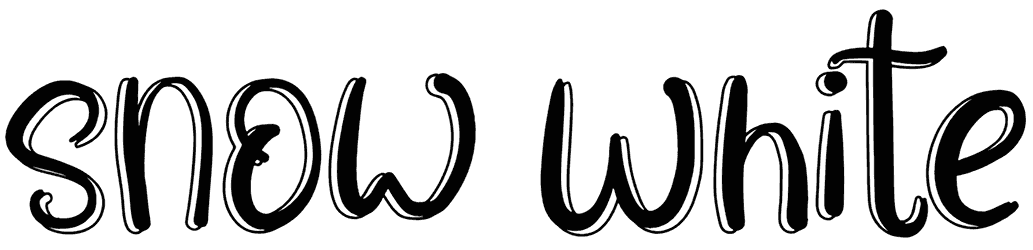
Snow White Font
When you look at the Snow White font, its engaging style grabs your attention at first glance. This handwritten font sends a friendly vibe and seems memorable to the viewers.
You may use the Snow White font for various cases, such as animations, video games, and posters. This invitation font’s letters have a slim shadow that makes them feel 3D. Moreover, their smooth edges with a curvy shape feel pleasant and boost your energy, so download this great font now.